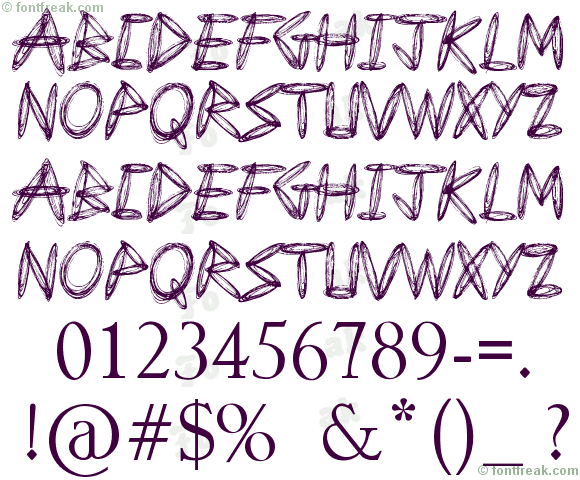
Draw Freehand
Draw Freehand by Jonathan S. Harris is a unique handwritten font that captures the essence of artistic expression. This font is characterized by its playful and slightly irregular lines, giving it an organic, hand-drawn feel. The stroke weight varies throughout, creating an engaging visual rhythm that draws the viewer's eye. The absence of perfect symmetry in the letterforms adds to its charm, making it a perfect choice for designs that require a personal touch. The spacing between characters is thoughtfully designed, ensuring readability while maintaining a casual vibe.
This font excels in a variety of design applications. It is particularly well-suited for creative projects such as wedding invitations, where its whimsical style can enhance the romantic theme. Additionally, it works wonderfully for movie posters, especially in genres that aim for a more artistic or indie aesthetic. Restaurant menus can also benefit from the inviting nature of Draw Freehand, helping to create a warm and welcoming atmosphere. Graphic designers and content creators will find this font valuable for branding purposes, as it adds a distinct personality to logos and promotional materials.
What sets the Draw Freehand font apart is its ability to blend creativity with functionality. The hand-drawn appearance invites engagement and evokes a sense of authenticity, making it an excellent choice for those looking to create a distinctive visual identity. For anyone seeking a unique typeface, the Draw Freehand font free download offers an opportunity to elevate their design projects with a personal touch.